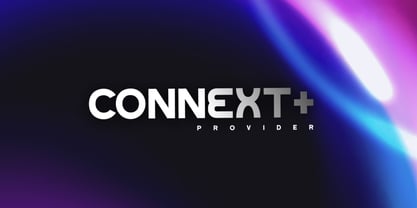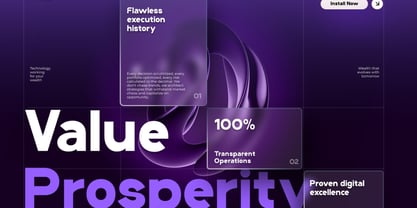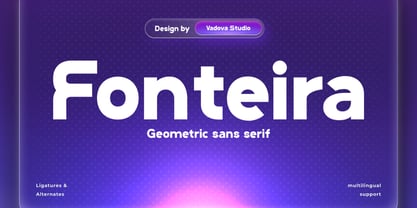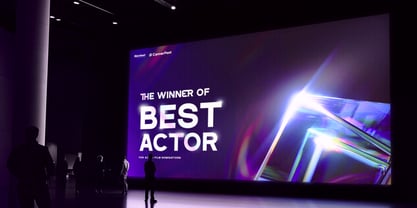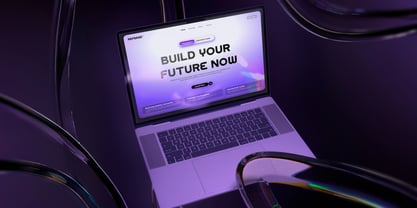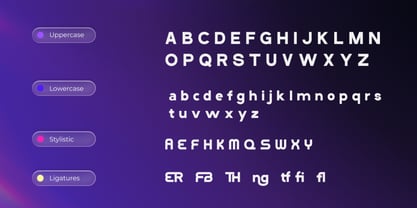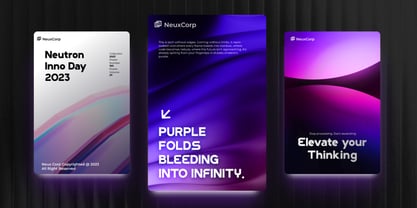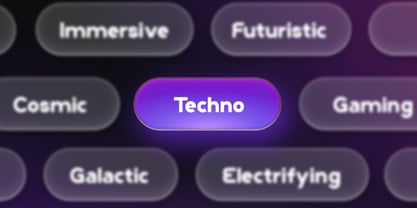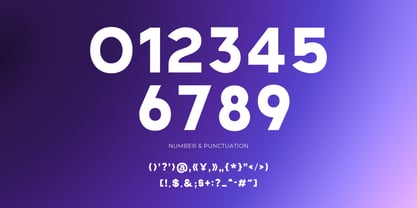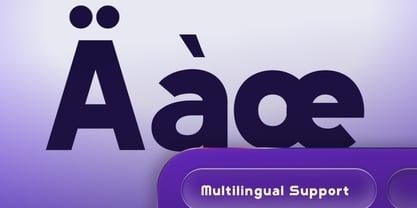
Fonteira
Fonteira is a bold and modern geometric sans serif font designed with clean lines, balanced proportions, and strong readability. Its versatile structure makes it perfect for contemporary projects that demand clarity and visual impact. With full uppercase and lowercase sets, multilingual support, stylistic alternates, and ligatures, Fonteira offers functionality and style for various design needs. Whether you're working on tech branding, futuristic UI interfaces, digital posters, or bold logotypes, Fonteira delivers sleek professionalism with a touch of modern playfulness. Its rounded terminals and geometric forms make it visually engaging without compromising legibility.